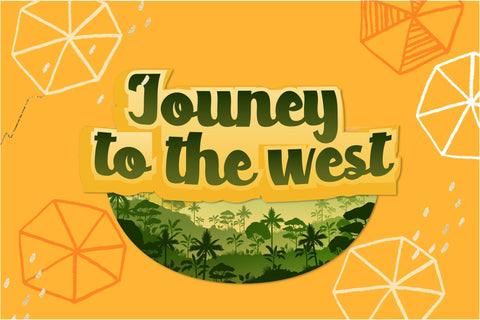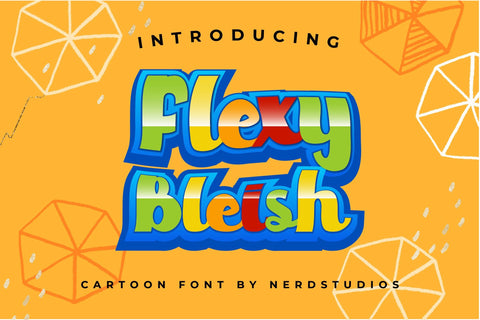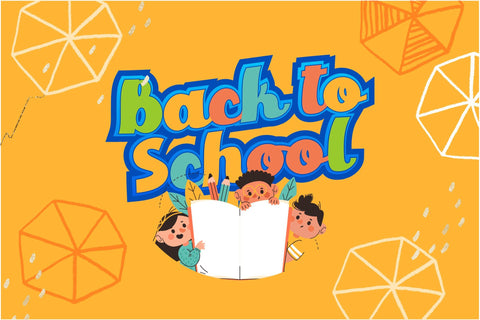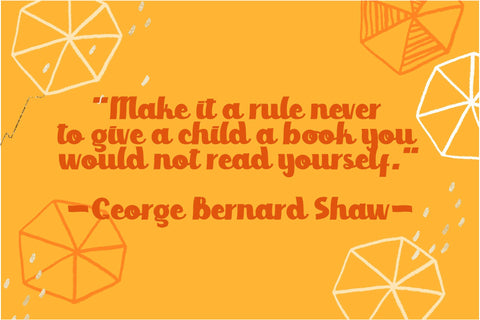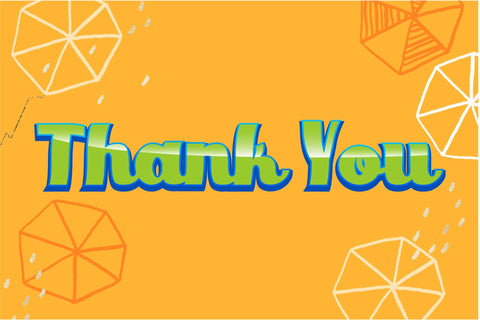
Flexy Bleish Cartoon Font
Flexy Bleish Cartoon font-for cute and flexible design style with unique character that can enhance the quality of your designs.
Flexy Bleish Cartoon font– This Font is perfect for designs, logos, social media, brands, advertisements, product designs, handwritten quotes, product packaging, headers, posters, merchandise, and other designs.